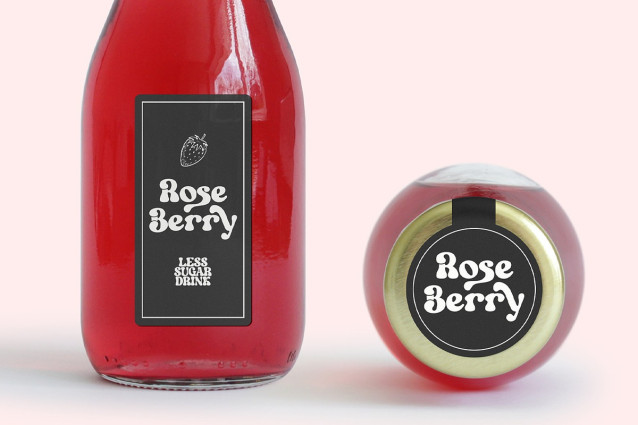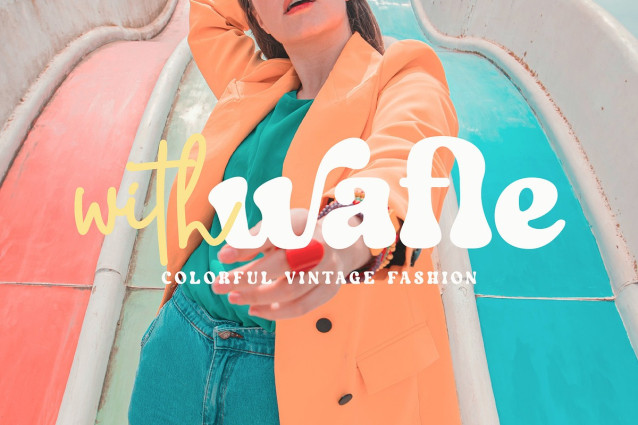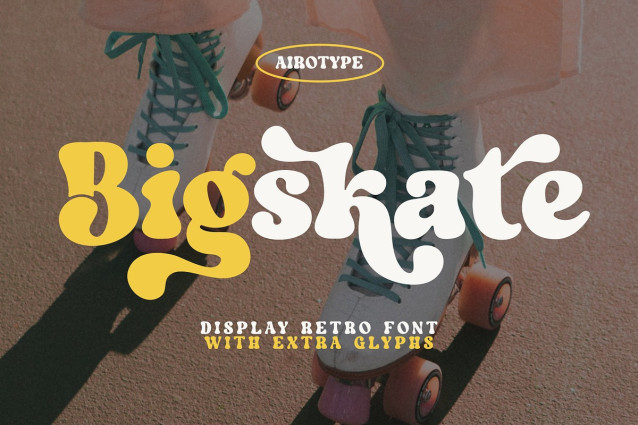
Bigskate Retro Font
Bigskate Retro Font is cute serif font with vintage and retro touch. It has 70s and 80s look in modernity. Bigskate has alternative extra characters that can be accessed with Font Book (Mac) or Character Map UWP (PC).
This font is suitable font for any projects with retro touch, such as logo, crafting, wedding invitation, branding, sticker, sublimation, quotes, and many others.